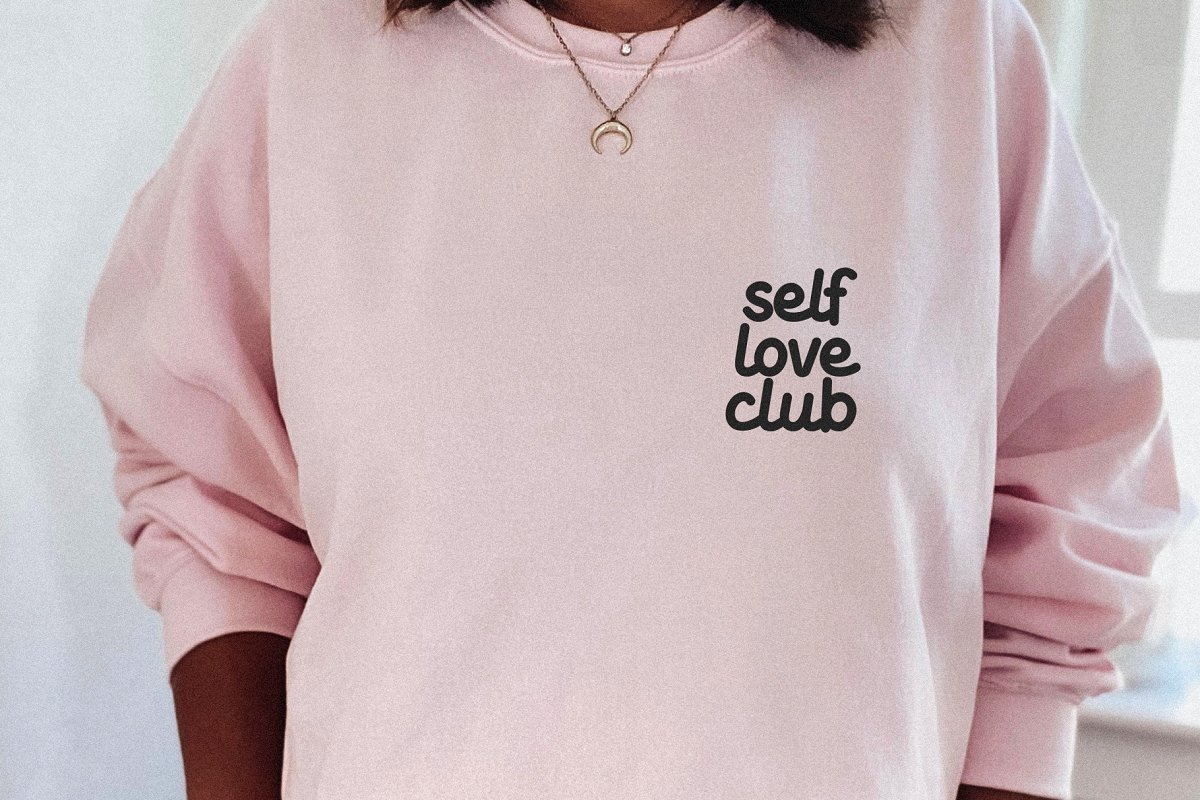
About the Sunshine Days | Cute Script Font
Sunshine Days is a cute handwritten font, This font is perfect for logos, craft projects, svg files, cricut, procreate, mugs, shirts, social media quotes and more!OTF/TTFThank you!